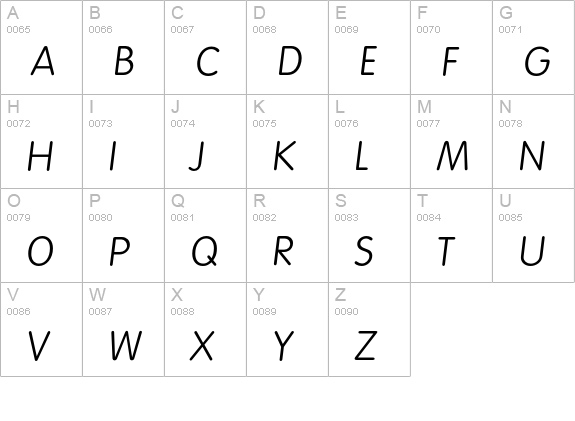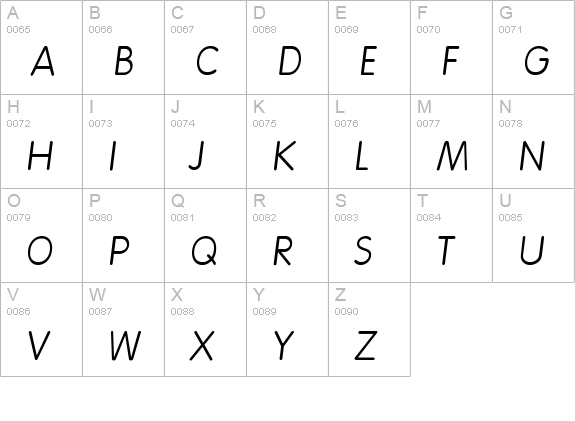
Volkswagen-LightIta Font Details
Volkswagen-LightIta font is a sleek and modern typeface that perfectly captures the essence of sophistication and elegance. Its clean lines and exquisite letterforms make it an ideal choice for both print and digital designs. With its light weight and subtle curves, Volkswagen-LightIta font adds a touch of refinement to any project. Whether you're designing a logo, a website, or a magazine layout, this font will give your work a sophisticated and polished look. What makes Volkswagen-LightIta font even more impressive is that it is freely available to download at FontsMarket.com. Yes, you read that right - this incredible font can be yours at no cost. So, not only does it elevate your designs, but it also saves you money. The versatility of Volkswagen-LightIta font is truly remarkable. It pairs beautifully with both serif and sans-serif fonts, allowing you to create stunning typographic compositions. Its legibility and clarity make it perfect for body text, while its elegant details make it equally suitable for headings and titles. Whether you're a professional designer or a hobbyist, Volkswagen-LightIta font is a must-have in your font collection. Its timeless appeal and effortless sophistication will add a touch of class to any project. So, don't miss out on this amazing opportunity to elevate your designs with a high-quality and free font. Download Volkswagen-LightIta font today at FontsMarket.com and let your creativity shine.